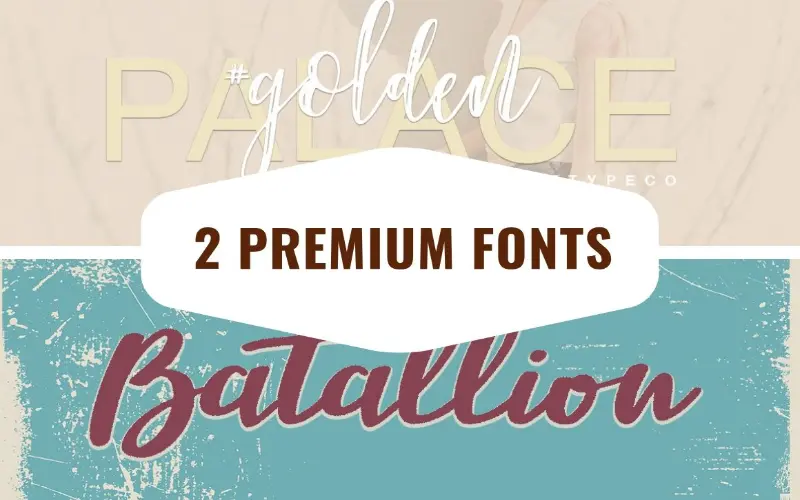
Use this versatile duo to instantly enhance your designs, adding authentic handwritten charm and elegant calligraphy to your next project –
Premium Fonts – Batallion Font & Golden Palace
1. Batallion Font
Meet the new Handwritten font Batallion! Batallion is a versatile and expressive font, perfect for adding a touch of personal, hand-drawn authenticity to your work. It is very suitable for:
- Branding Materials & Business Cards
- Greeting Cards & Posters
- Quotes, Websites, Merchandise, and Invites
2. Golden Palace
Golden Palace is a new, fresh, handmade calligraphy font defined by its elegant flow. Use this refined style to create perfect and unique designs for high-end projects. It’s an excellent choice for:
- Wedding Postcards
- Logos & Blog Headers
- Stationery, Marketing, and Magazines